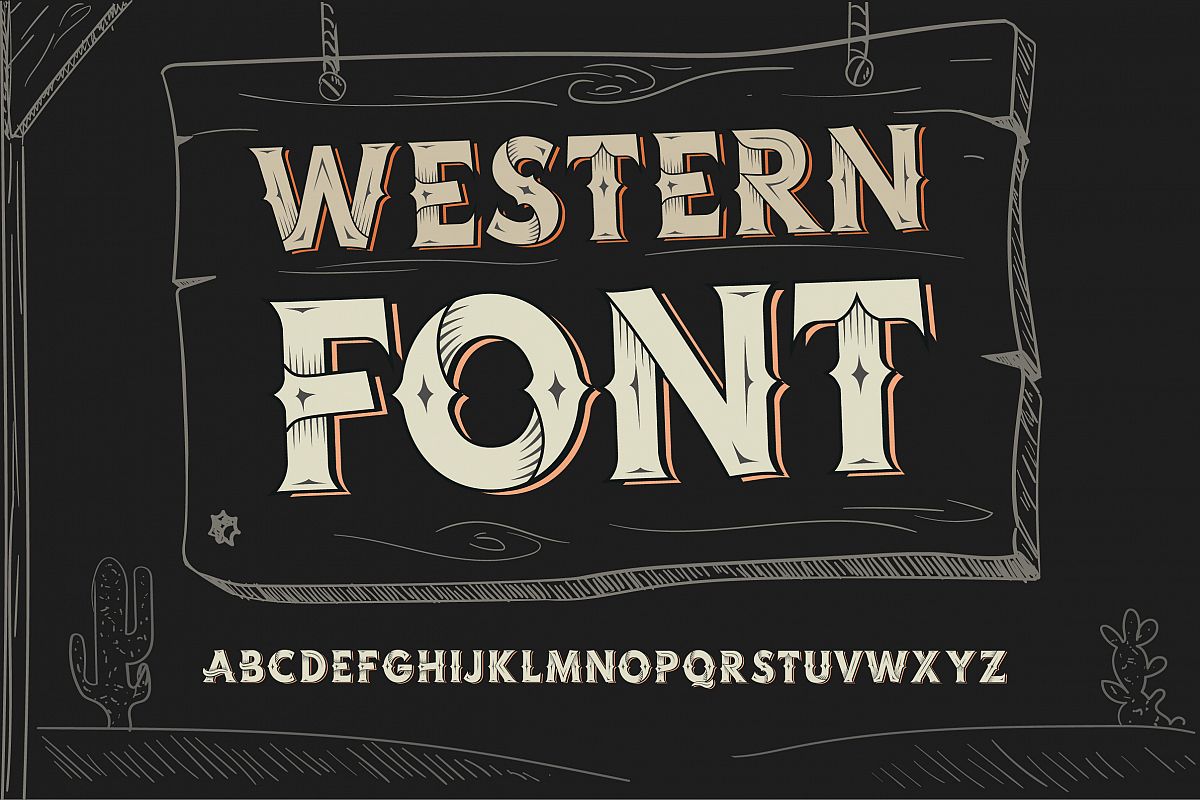
Western OTF vintage label font. Uppercase only!
Western
Vintage OTF vintage label font. Uppercase only!
Western OTF vintage label font. Uppercase only! example image 1